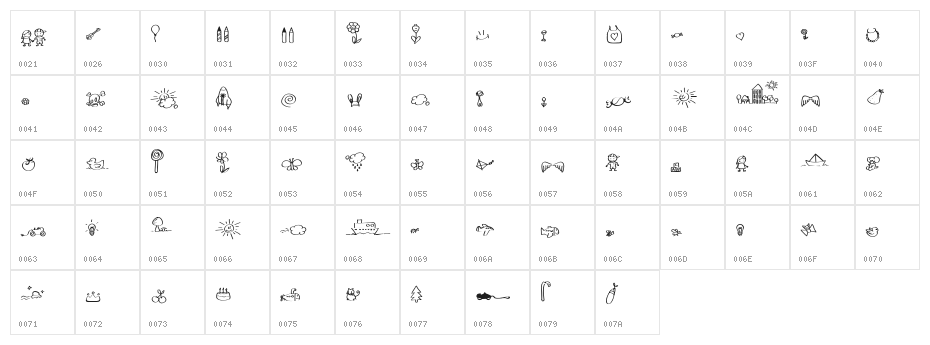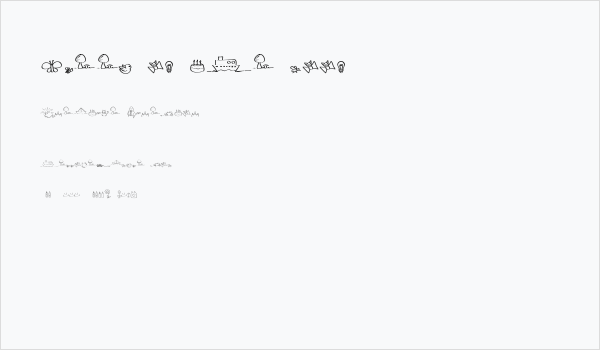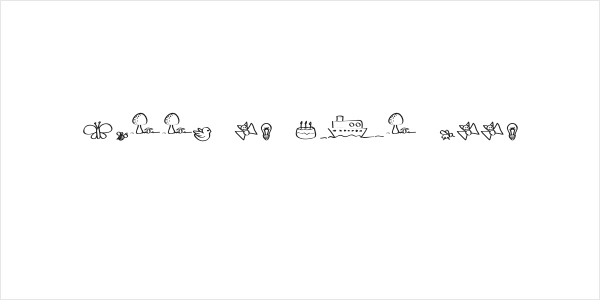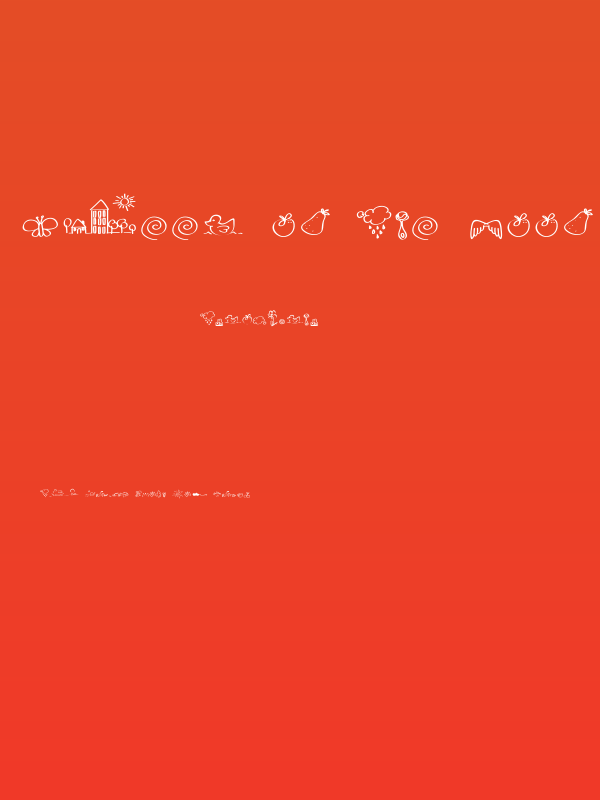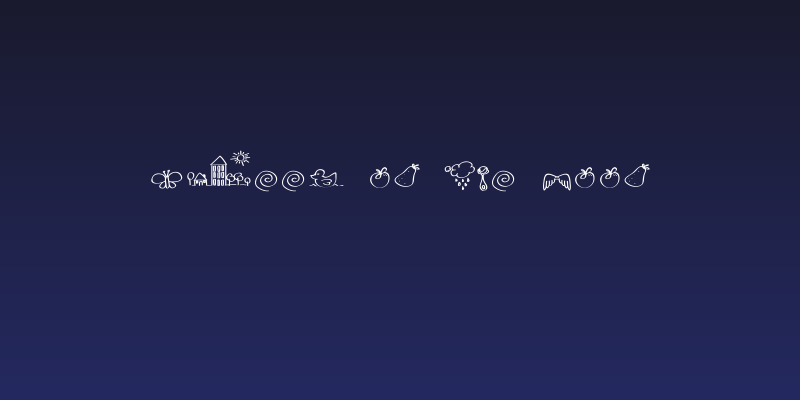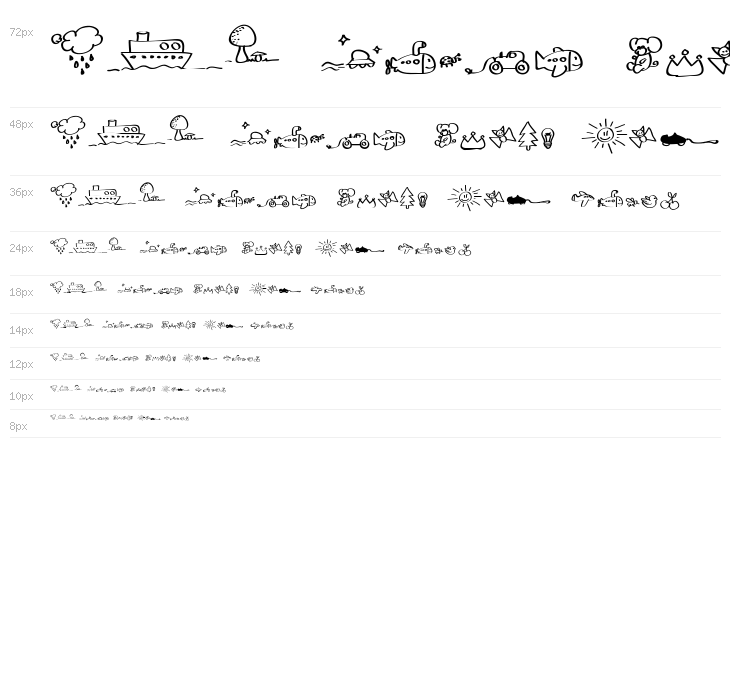
Sleep on the moon Font
Sleep on the moon Description
This is a whimsical and playful collection of doodle-style illustrations, featuring a variety of charming and imaginative elements. The designs include a mix of nature-inspired motifs like flowers, trees, and animals, alongside everyday objects such as balloons, pencils, and musical instruments. Each illustration is crafted with a hand-drawn aesthetic, characterized by smooth, flowing lines and a sense of spontaneity. The overall style is light-hearted and fun, making it suitable for projects that aim to evoke a sense of joy and creativity. The illustrations are versatile and can be used to add a touch of personality and warmth to a wide range of applications.
| Overall Style | Whimsical, Playful |
| Use Case | Decorative elements, Illustrations |
| Proposed Projects | Ideal for children's books, playful branding, greeting cards, and creative educational materials. |